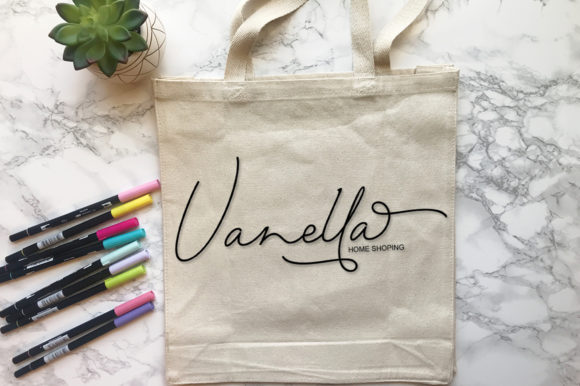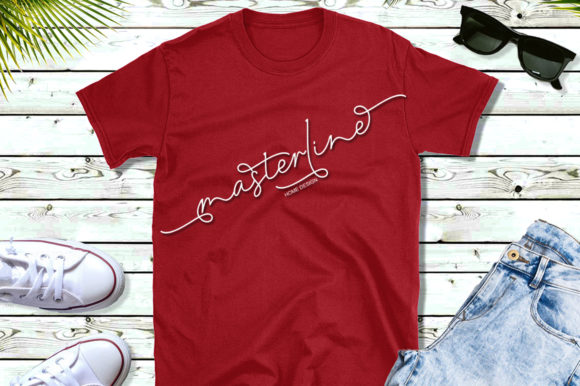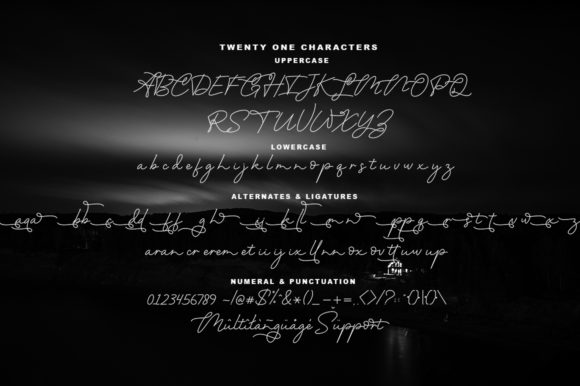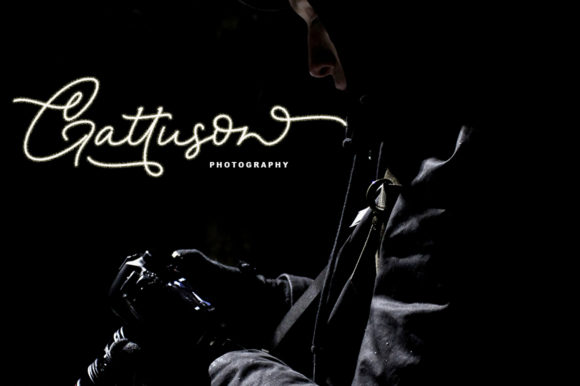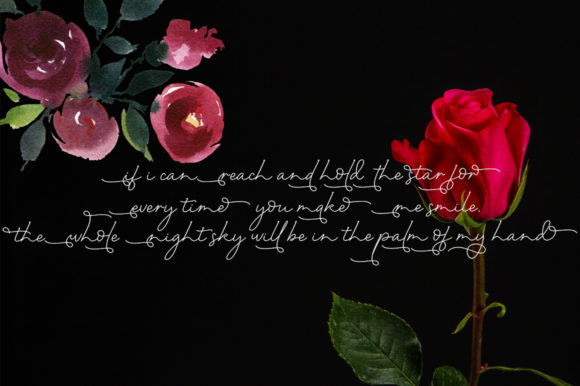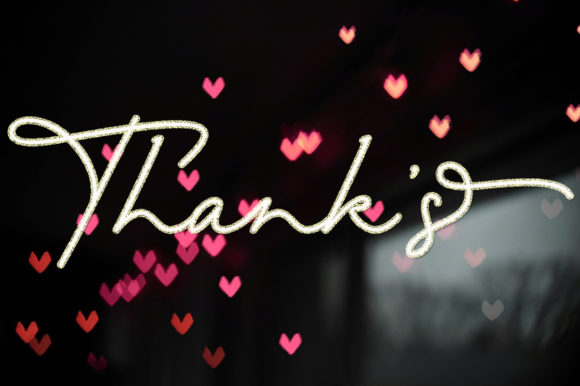
Twenty One Script Font
About Twenty One Script Font
Twenty One is a unique and bold handwritten font with incredible letters. Get inspired by its unique charm, and turn any design project into a stand out!